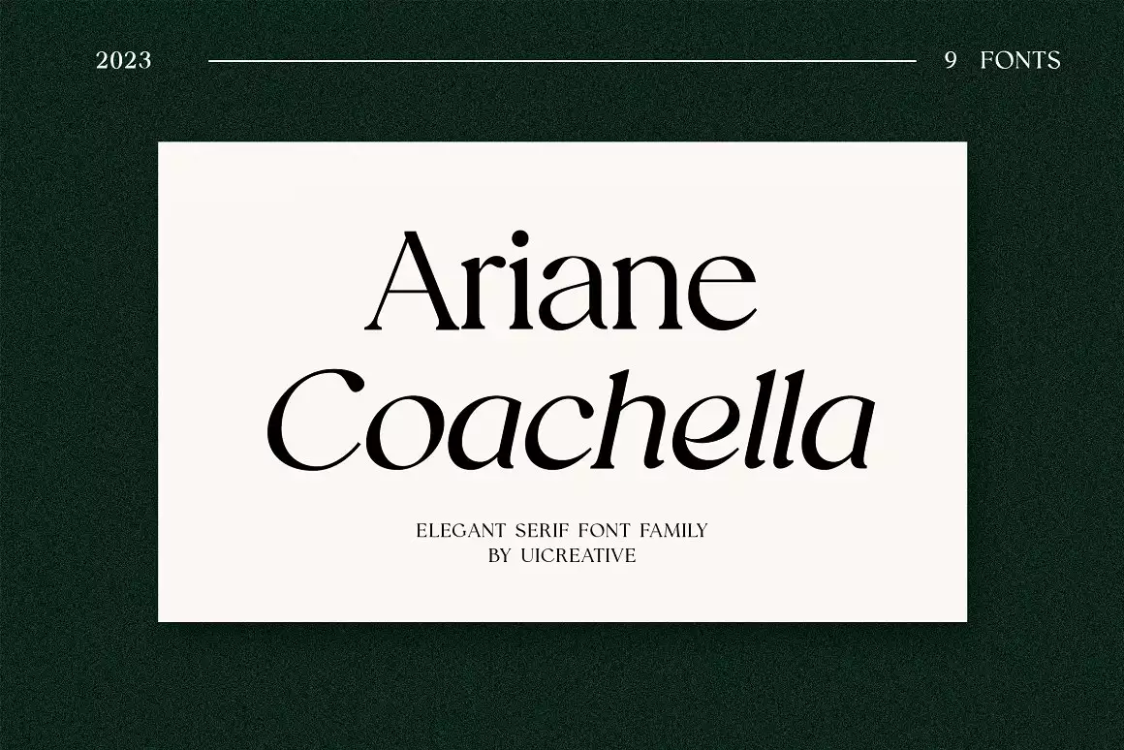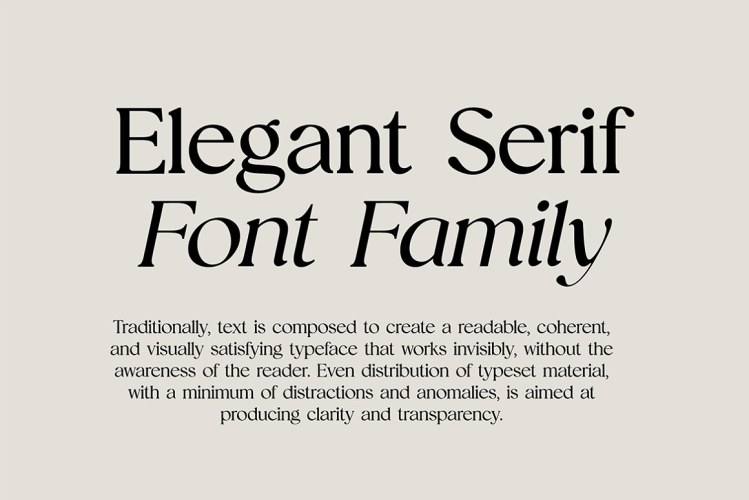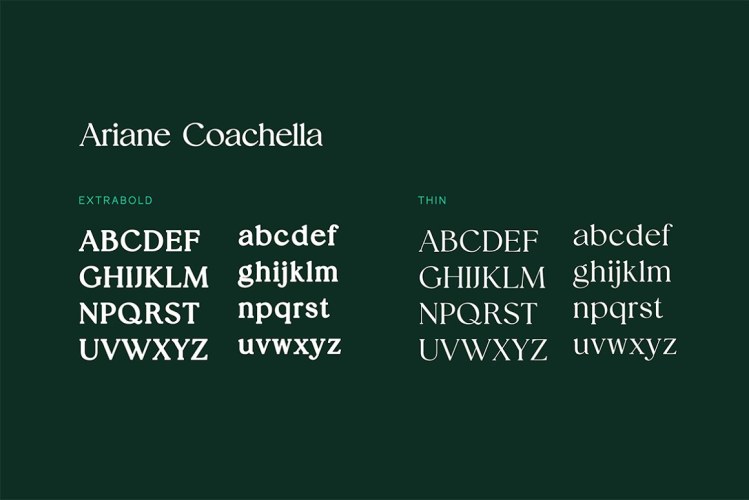
Ariane Coachella Elegant Serif Font
Introducing our new product the name is Ariane Coachella Elegant Serif Font. Modern Serif font that feels beautiful classy, elegant, and modern. This font is ideally suited for a wide variety of projects, such as signature, stationery, logo, wedding, typography quotes, magazine or book covers, website headers, clothing, branding, packaging design, and more. Also, fashion-related branding or editorial design displays both masculine and feminine qualities.
Ariane Coachella Elegant Serif Font is a Serif Fonts font that brings a professional and versatile look to your projects. Introducing our new product the name is Ariane Coachella Elegant Serif Font .